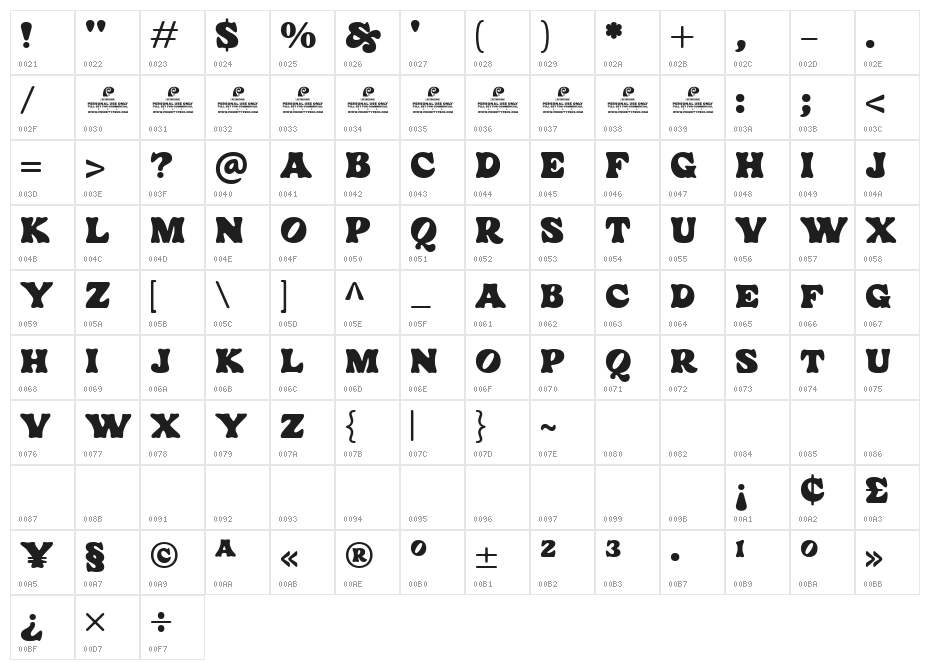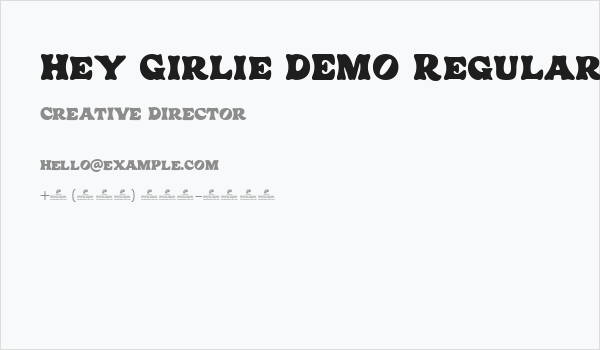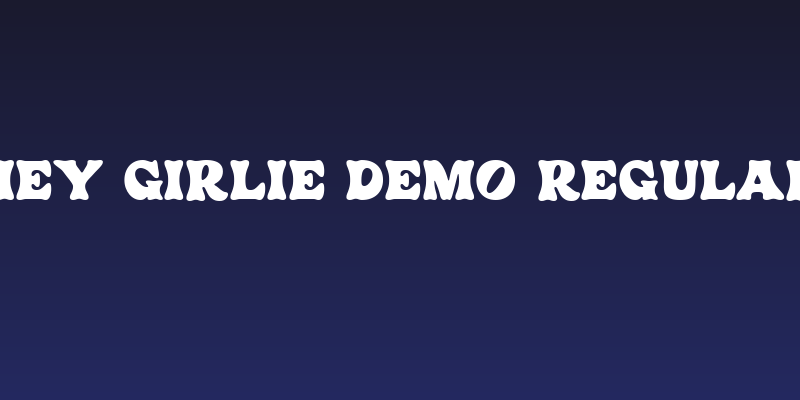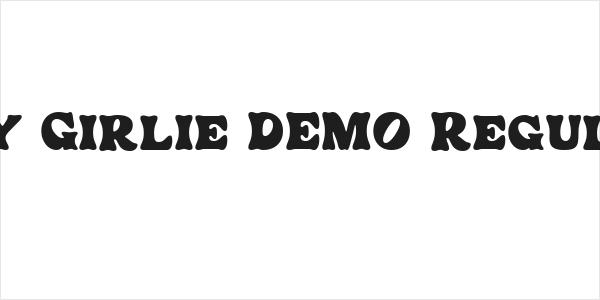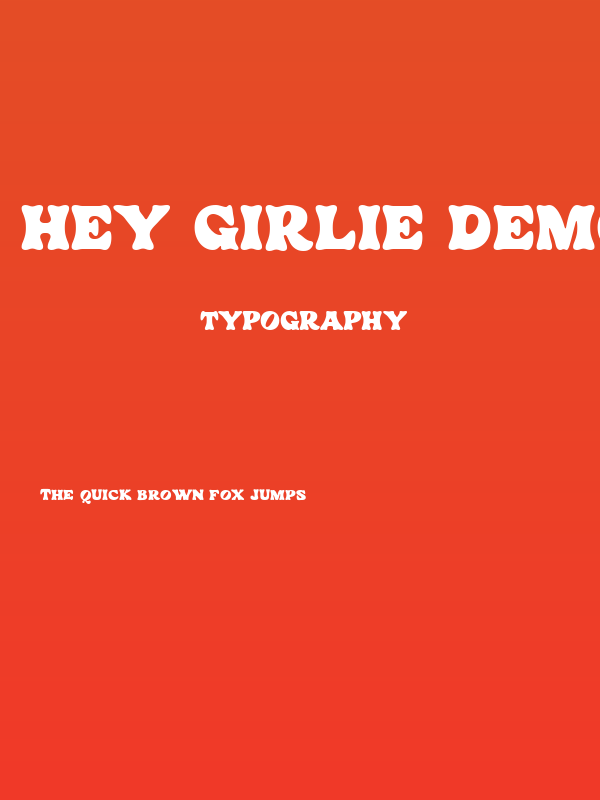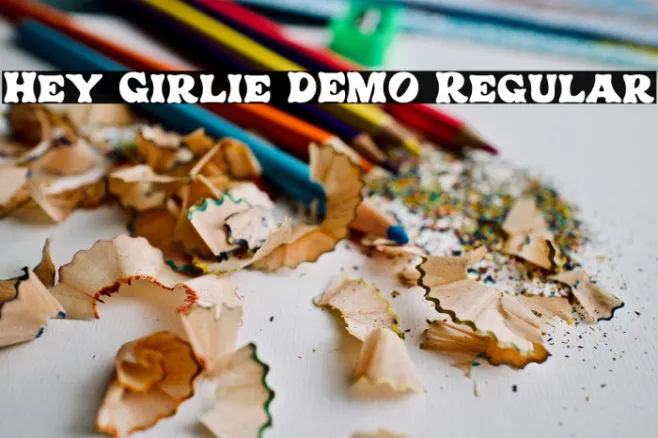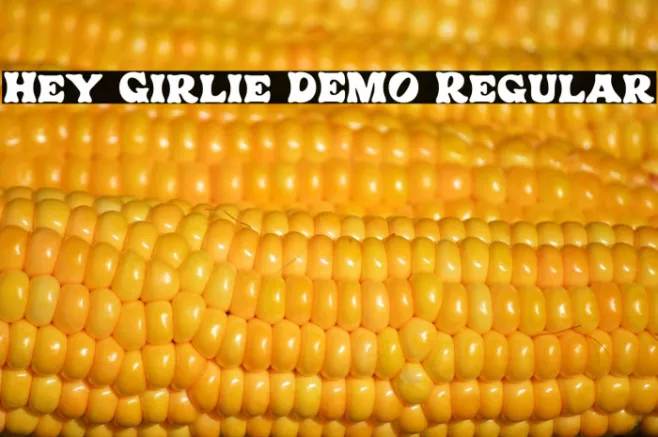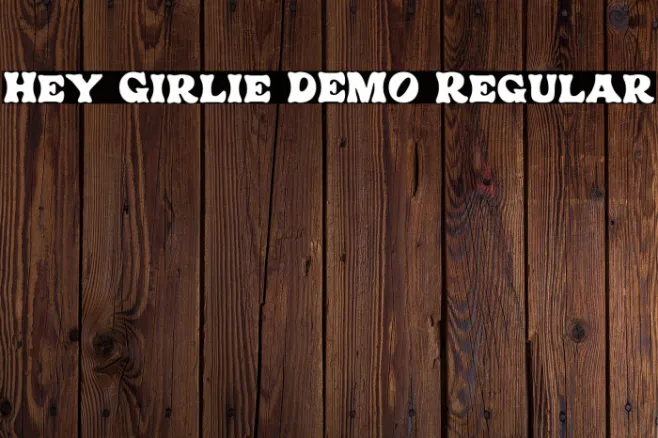
Hey Girlie DEMO Regular Font
| Gesamtstil | Playful, Whimsical |
| Vorgeschlagene Projekte | Ideal for children's books, playful branding, party invitations, and creative posters. |